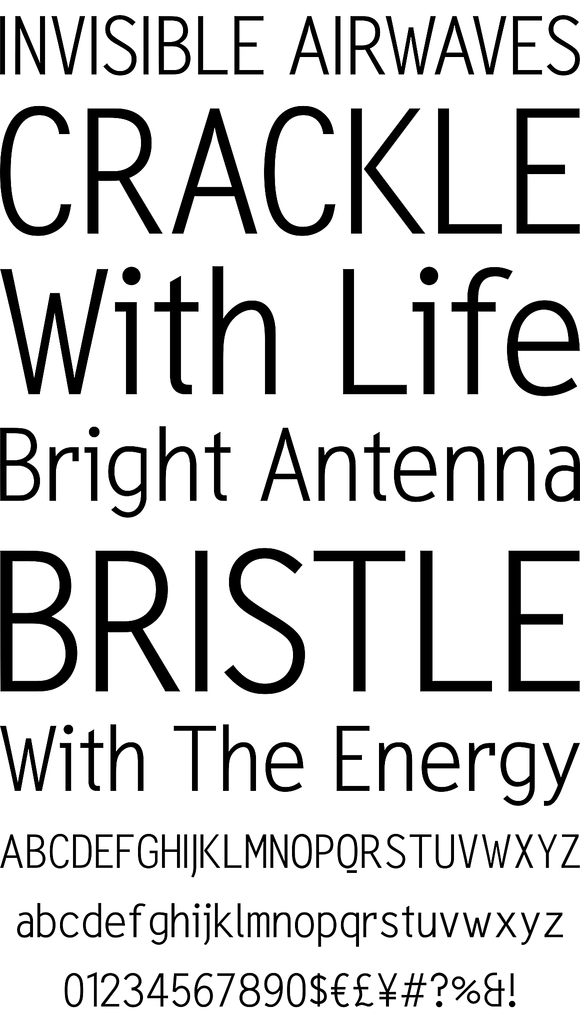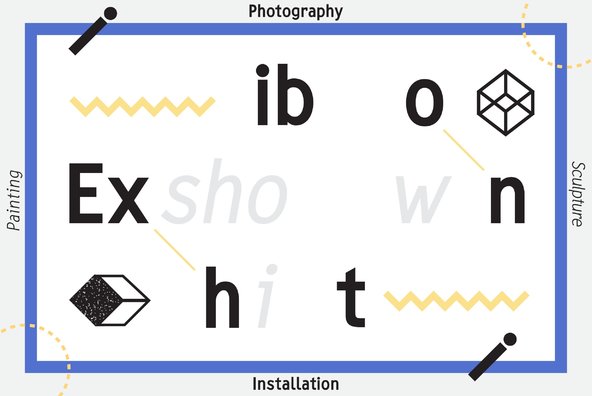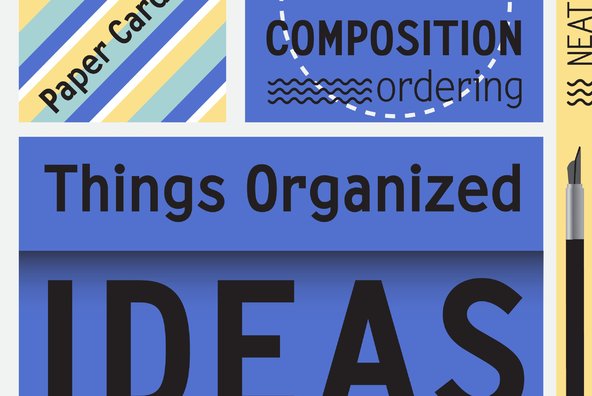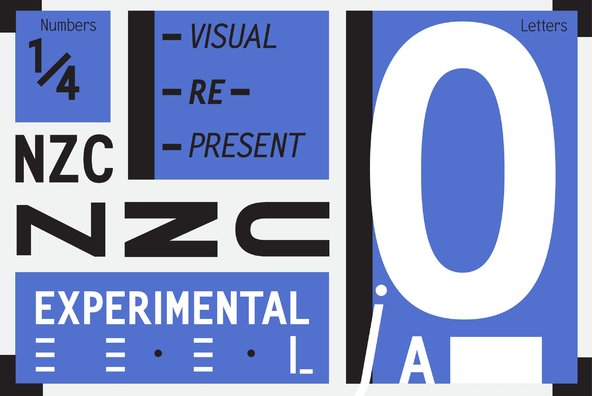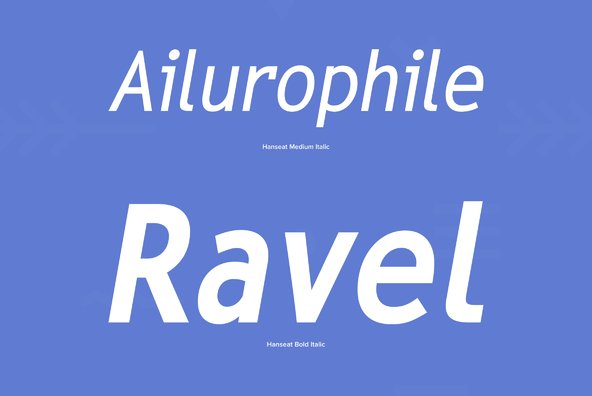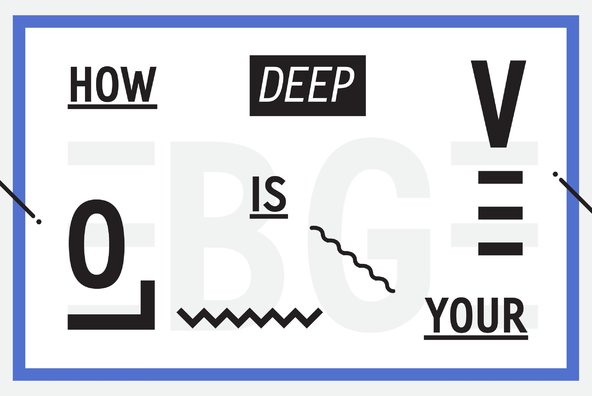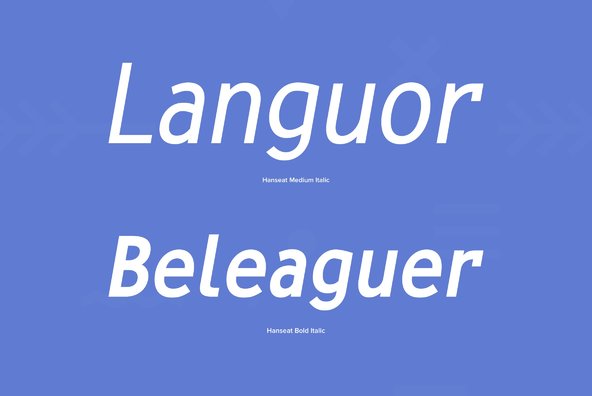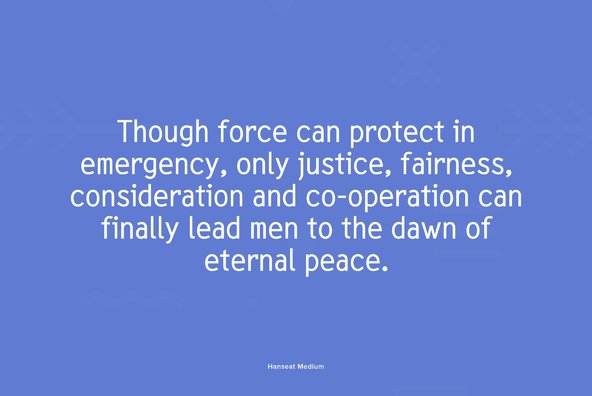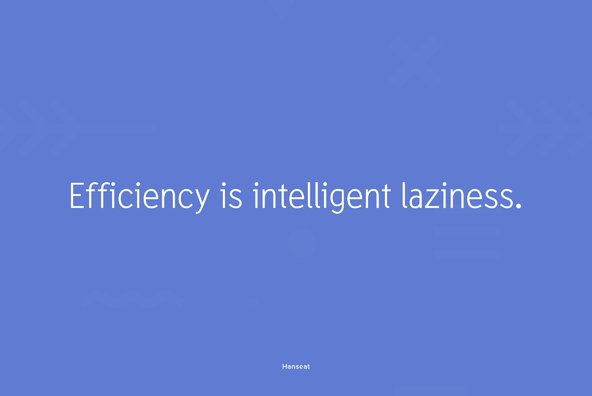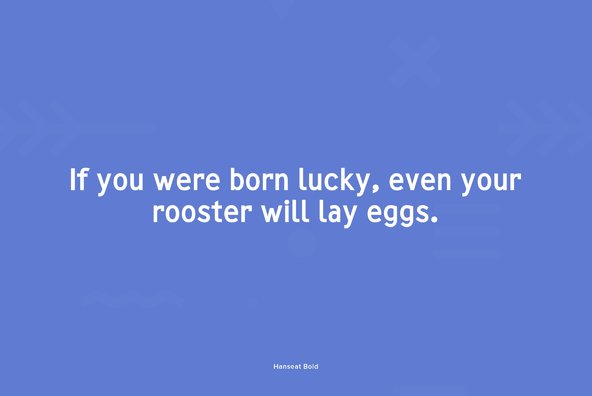
Hanseat
Hanseat is a new profonts typeface family by Ralph M. Unger, heavily inspired by Germany's official DIN 1451 Engschrift. Originally, the German DIN (Deutsches Institut für Normung / German Committee for Industrial Standardization) typefaces were taken as the standard traffic fonts for street signs and house numbers. During the 1980s, the DIN fonts became digitally available for sign making systems, initially again primarily for traffic sign purposes. However, later on, the DIN fonts became also popular in the world of designers and art directors. Hanseat is a modern, contemporary interpretation of the DIN fonts, responding to the ever growing demand for such typeface designs reflecting the spirit of the industrial area.